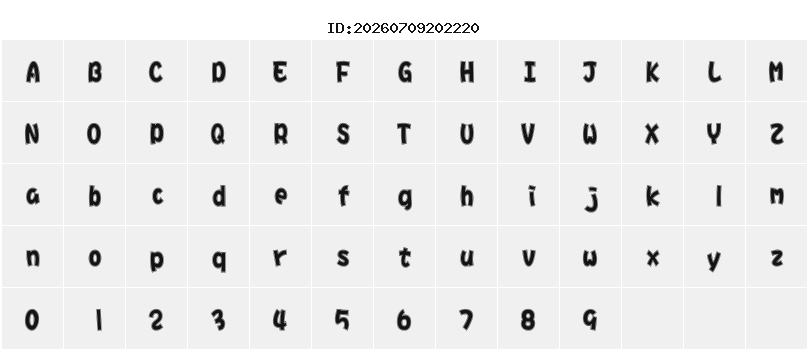
DFHaiBaoW9L Preview
• Font Name: DFHaiBaoW9L
• Full Font Name: DFHaiBaoW9L
About DFHaiBaoW9L.ttf
DFHaiBaoW9L.ttf is a modern, elegant sans-serif font designed for ultimate readability and visual harmony. Perfect for branding, headlines, web design, and print materials.